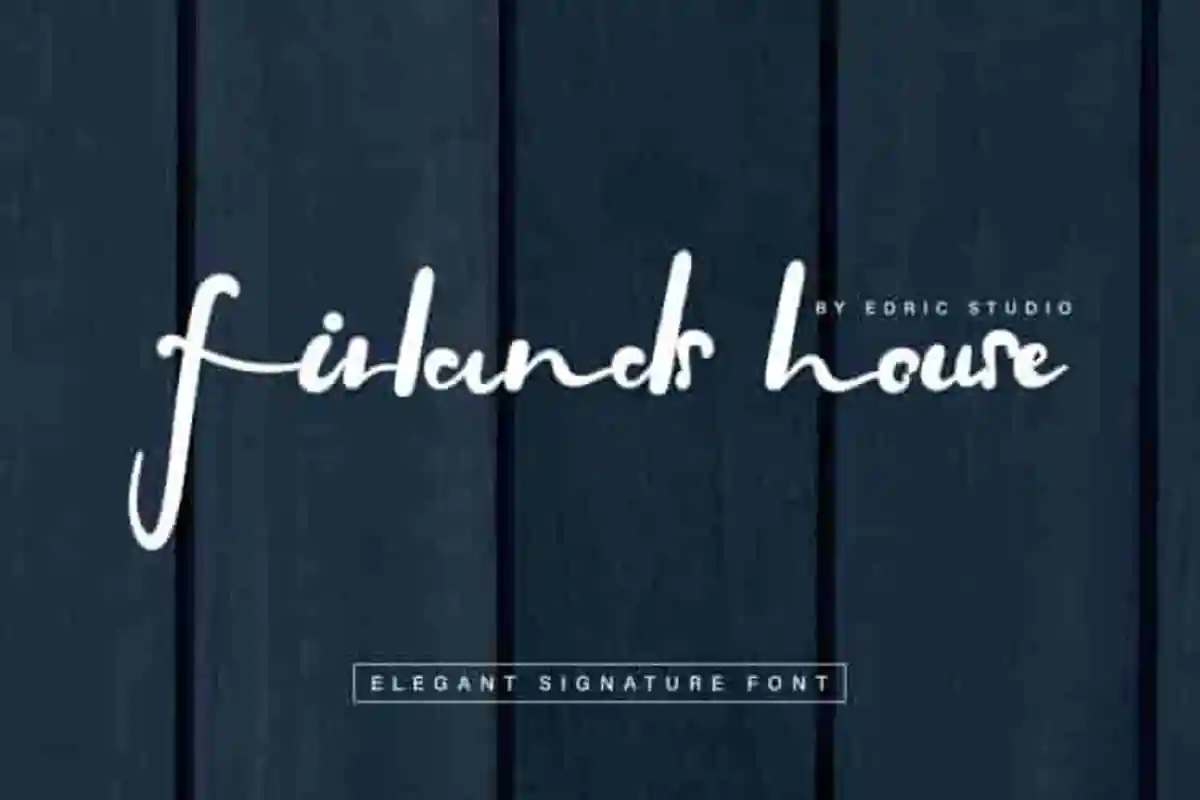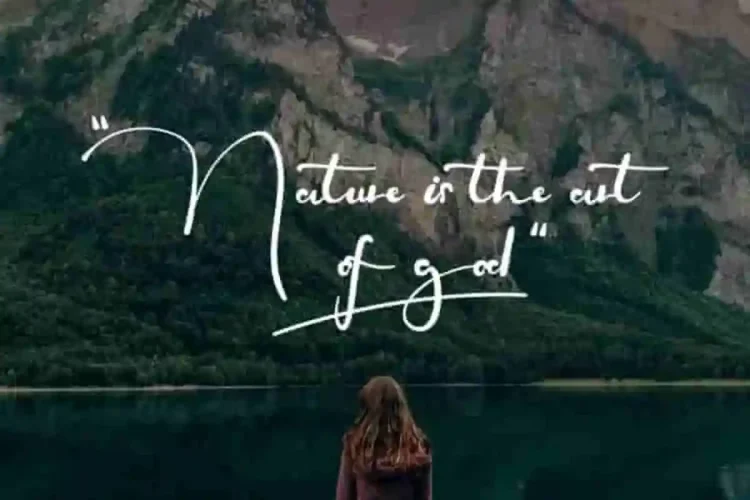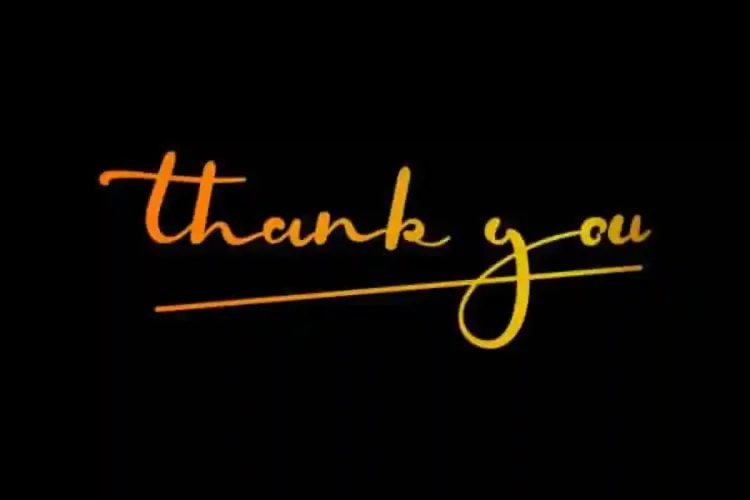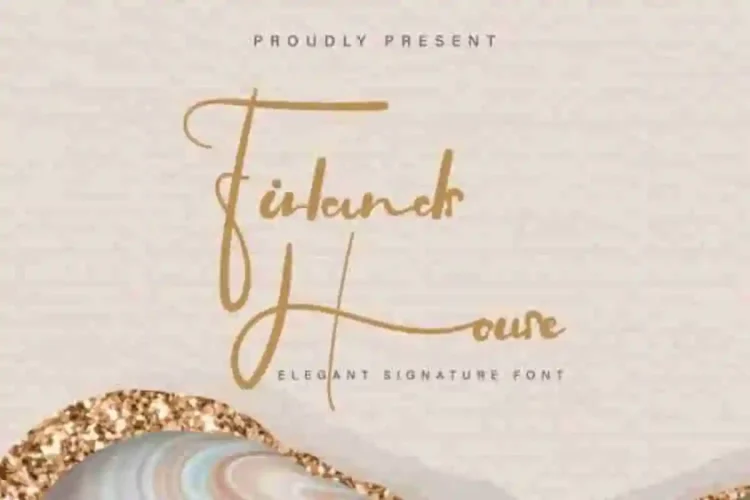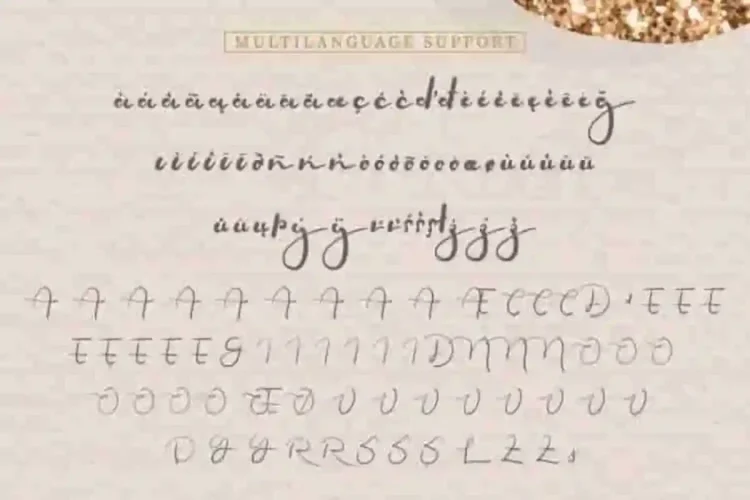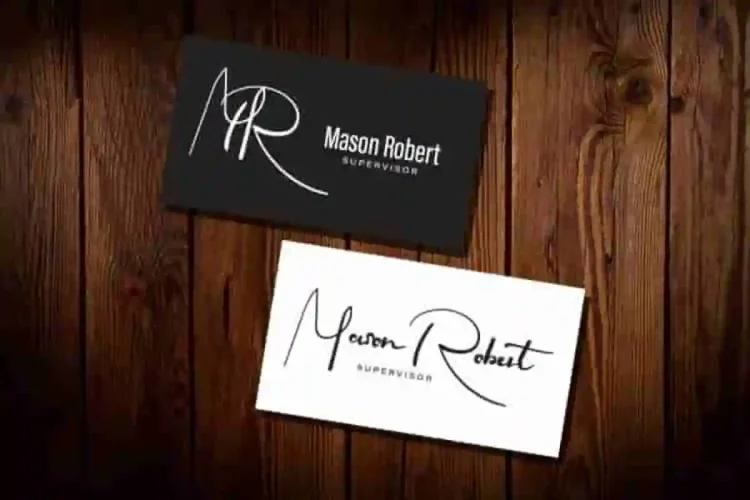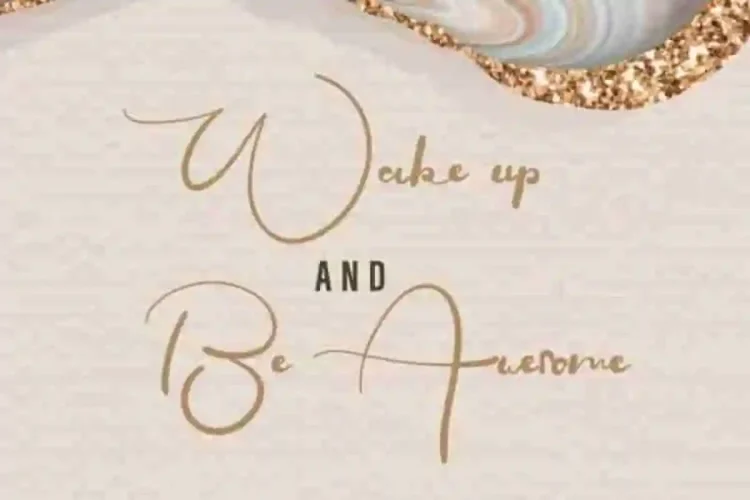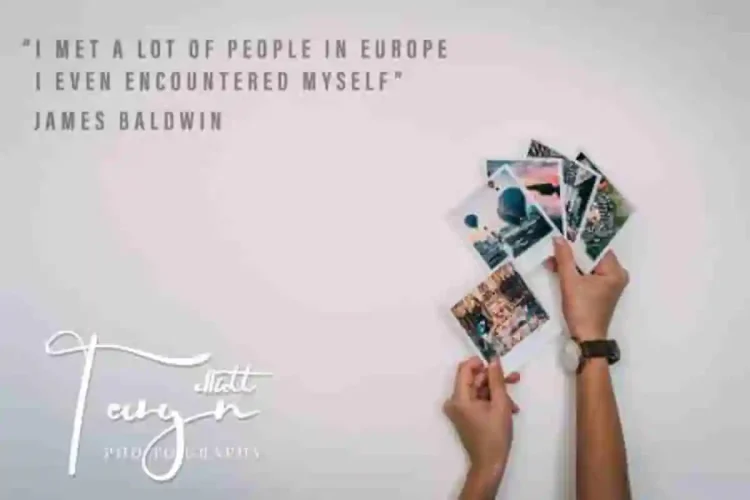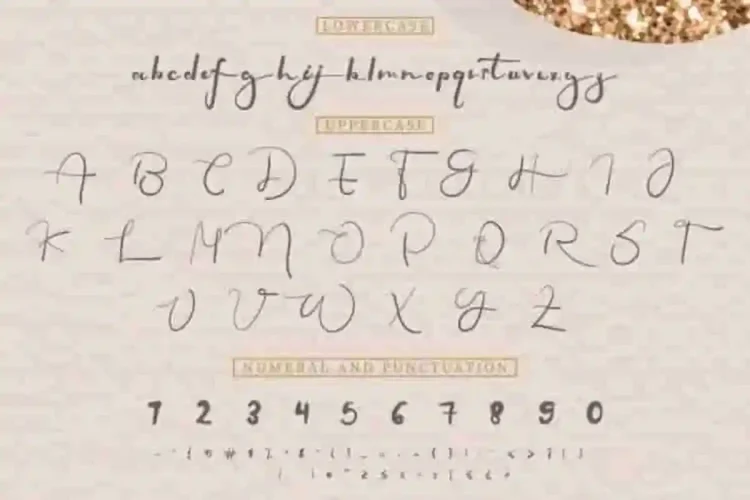
Firlands House Brush Signature Font
What’s up Everybody? Please welcome! our newest font from our lovely artist :  Firlands House Brush Signature Font
This is a signature handwriting font, handcrafted from our Studio here in, Indonesia. The artists/designers of this beautiful tyeface is Saila and Suci.
Firlands House Brush Handwritting Font is an exclusive script typeface with unique brush style. This font has a stunning characters set, perfectly managed with well spaced and kerning.
Firlands House Brush Handwritting Font will be great for any projects including : branding, logo, stationery, business card, signage, flyer, brochure etc. Almost all industries will be match for this typeface: wedding, events, real estate, architect, law firm, florist, gardening, makeup artist, travel, hotel, musician etc.